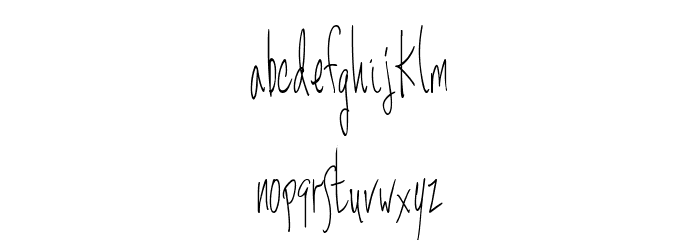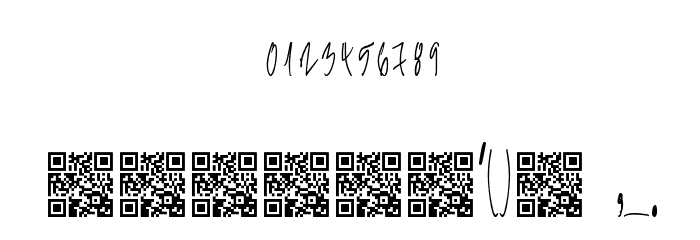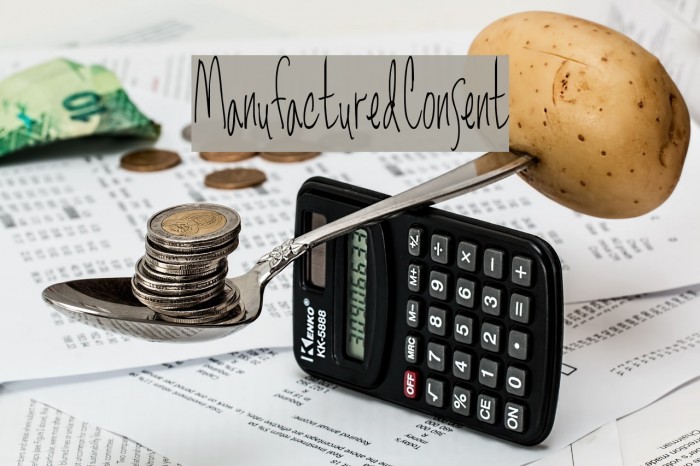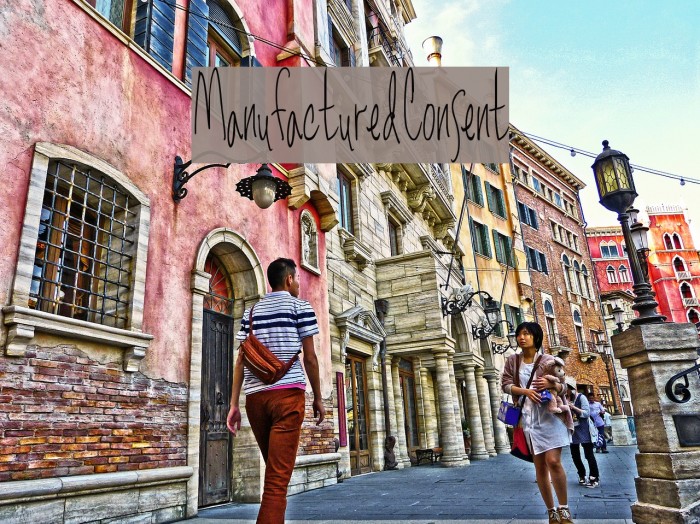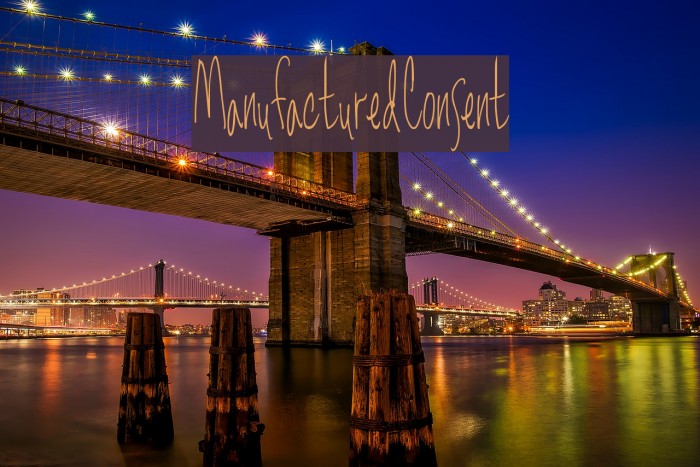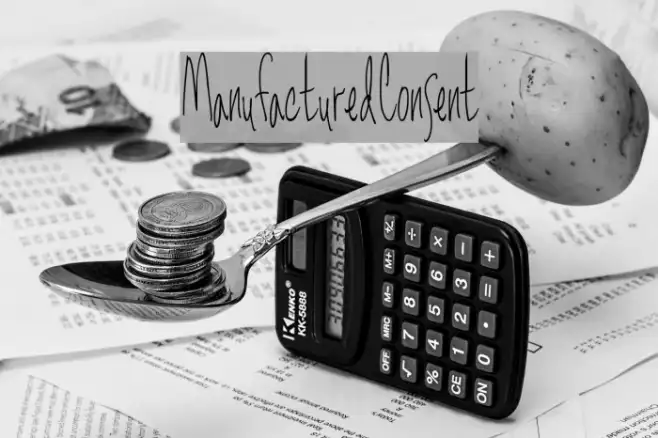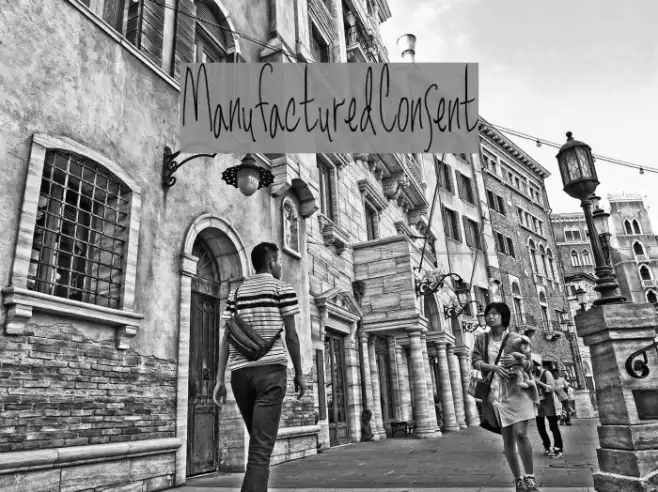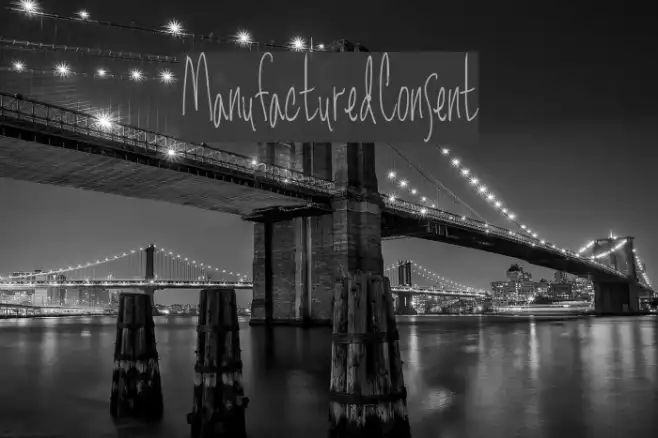
ManufacturedConsent Font
This font features a handwritten style with a casual and organic appearance. The letters are slightly slanted, giving it a dynamic and lively feel. The strokes are uneven, mimicking the natural flow of handwriting, which adds a personal touch to the text. The uppercase and lowercase letters maintain a consistent style, with some characters having unique flourishes that enhance the font's charm. The numbers and special characters are designed to match the overall aesthetic, ensuring a cohesive look across all elements.
A casual handwritten font with a lively and organic appearance.
- Proposed Projects: Ideal for personal notes, invitations, greeting cards, and creative projects that require a personal touch.
- Overall Style: Casual
- Use Case: Logos, Invitations, Greeting Cards